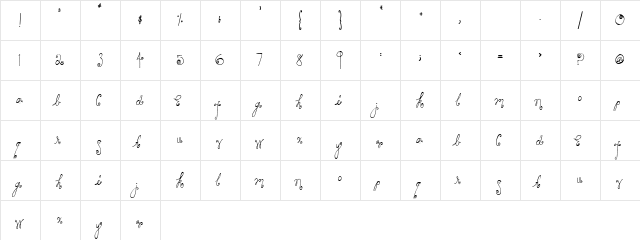
2Peas First Crush Regular
Design Context for 2Peas First Crush Typeface
2Peas First Crush takes a measured approach to typography — its balanced proportions and neutral character make it a reliable workhorse for both digital and print work.